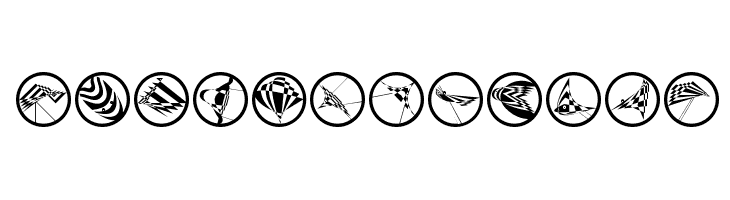
A modern, geometric font with bold, angular characters and unique design elements.
A festive, ornament-themed font ideal for holiday designs.
A bold, decorative font with geometric and artistic elements.
A bold, geometric font with a futuristic and modern design.
A bold, industrial-style font with angular lines and geometric elements.
A bold, geometric font with characters enclosed in black circles, offering a modern and striking appearance.
A modern, dot-based font with a geometric and playful style.
A bold, decorative font with rounded shapes and dot accents, offering a playful and futuristic look.
A bold, geometric font with characters enclosed in circles, offering a modern and decorative style.
A futuristic, geometric font with rounded, interconnected letterforms.
A playful, decorative font with bold letters and numbers encased in dotted circles.
A bold, geometric font with a futuristic and industrial design.
A geometric, modern font with sharp angles and high contrast.
A modern, geometric sans-serif font with clean lines and balanced proportions.
A modern, geometric font with bold lines and tech-inspired design.
A modern, geometric font with bold, rounded shapes and playful elements.
A modern, dotted font with a playful and creative style.
A bold, futuristic font with rounded, geometric letterforms and dynamic cut-out sections.
A bold, futuristic font with geometric shapes and smooth curves.